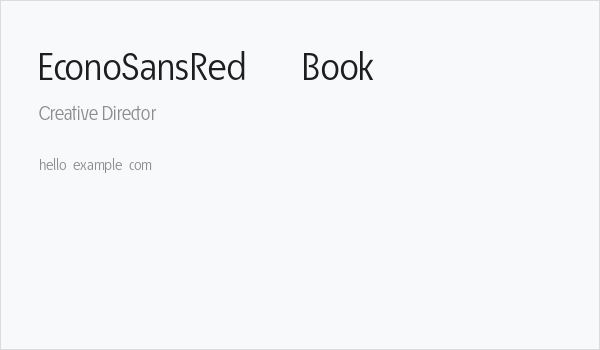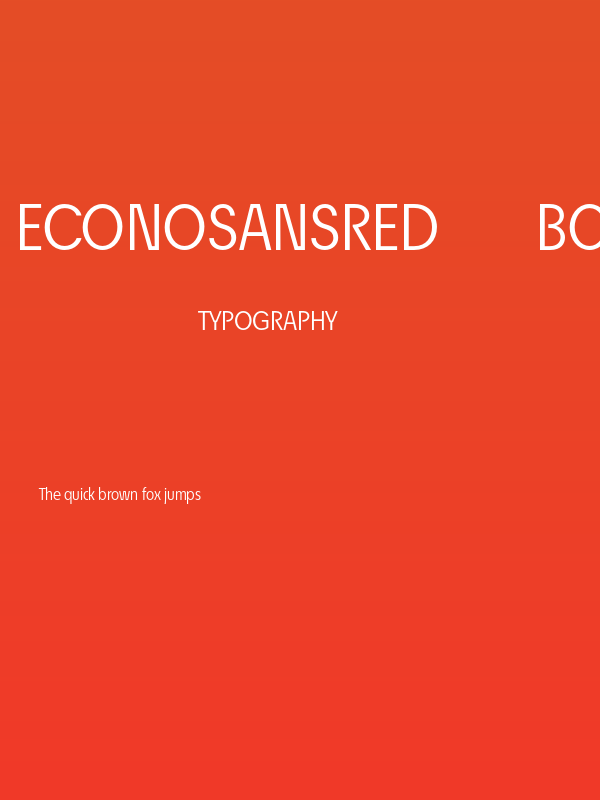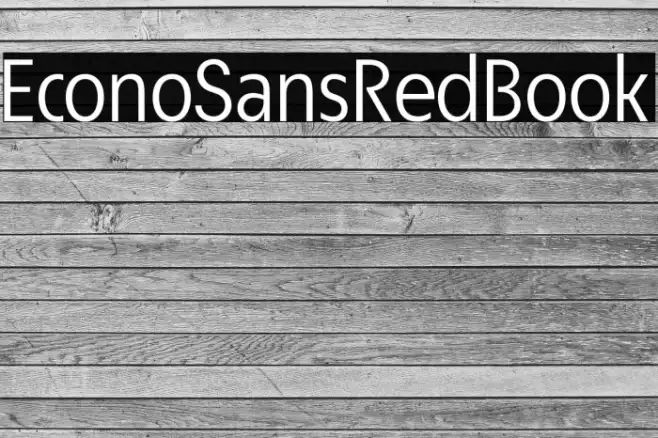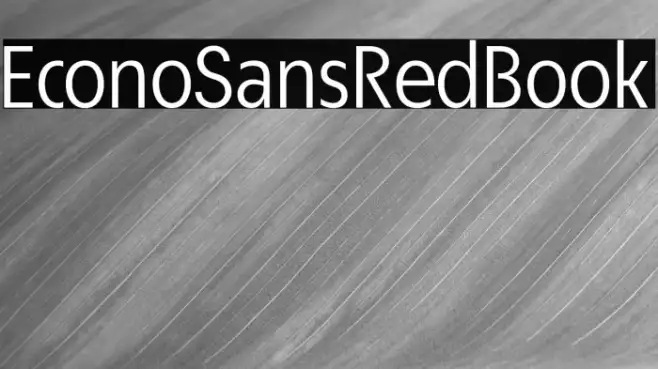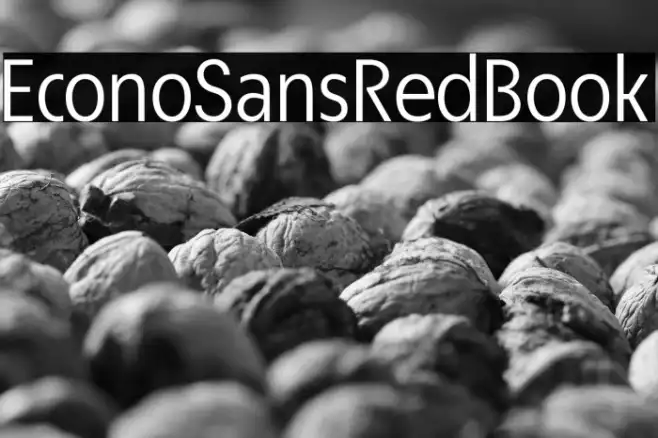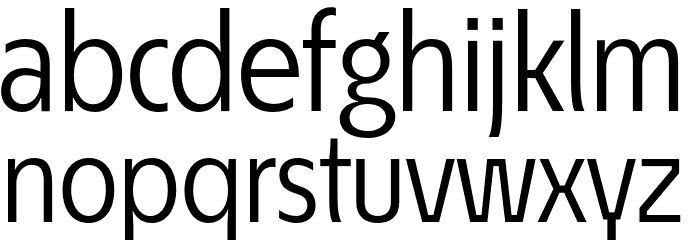
EconoSansRed-55Book Font
EconoSansRed-55Book Description
This font features a clean and modern sans-serif design with a focus on readability and simplicity. The characters are well-proportioned, with a consistent stroke width that gives it a uniform appearance. The uppercase letters are bold and assertive, while the lowercase letters maintain a friendly and approachable look. The numerals are clear and easy to distinguish, making them suitable for various applications. The special characters are designed to complement the overall style, ensuring versatility across different contexts. This font is ideal for both digital and print media, offering a professional yet contemporary aesthetic.
| Proposed Projects | Suitable for corporate branding, web design, user interfaces, and editorial layouts. |